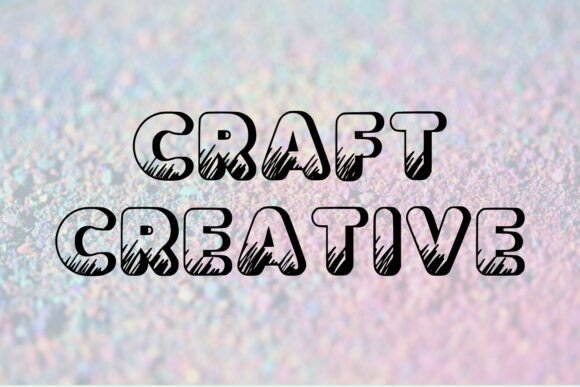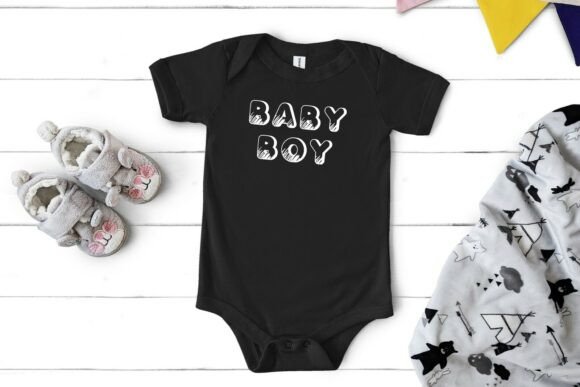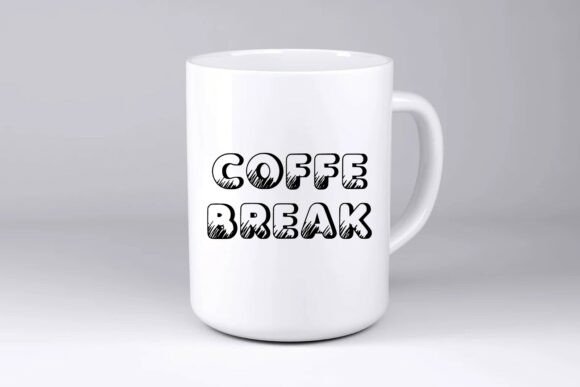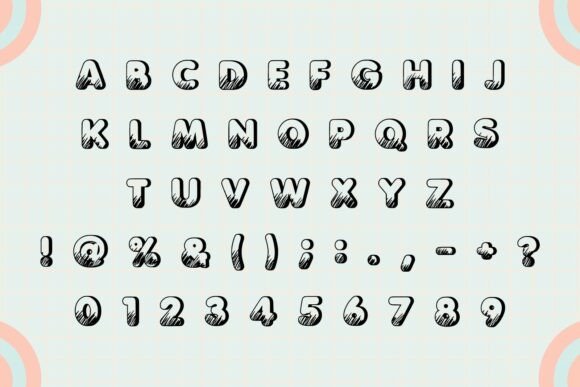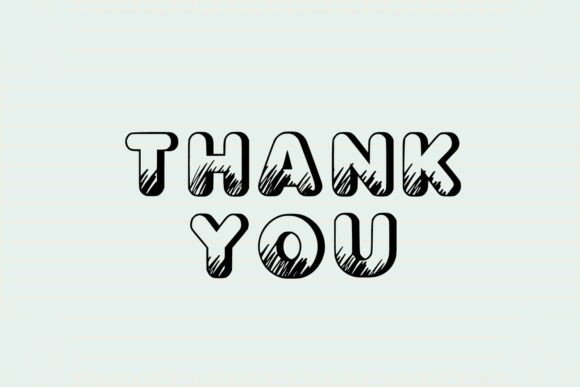
Doodle Chalk Font: Unleash Your Creativity with a Bold and Edgy Display Font
Are you looking for a font that can add a strong and rebellious vibe to your designs? Look no further than the Doodle Chalk Font. This bold, rough, and edgy display font is perfect for creating eye-catching posters, album covers, t-shirts, and more. With its worn-out, street-inspired look and distressed texture, Doodle Chalk Font is ideal for projects that need a tough and gritty appearance.
What is Doodle Chalk Font?
Doodle Chalk Font is a display font with a round pattern style, giving it a unique and distinctive look. The letters have a distressed texture that gives a raw and urban feel, making it perfect for designers who want to add a touch of edginess to their work. The font’s bold and rough texture makes it stand out from other fonts, and its versatility allows it to be used in a variety of design projects.
Key Features of Doodle Chalk Font
- Bold and Edgy: Doodle Chalk Font has a strong and rebellious vibe, making it perfect for designs that need to make a statement.
- Distressed Texture: The font’s distressed texture gives it a raw and urban feel, adding a touch of grit and toughness to your designs.
- Round Pattern Style: The font’s round pattern style gives it a unique and distinctive look, setting it apart from other display fonts.
- Versatile: Doodle Chalk Font can be used in a variety of design projects, from posters and album covers to t-shirts and more.
Uses of Doodle Chalk Font
Doodle Chalk Font is perfect for designers who want to add a touch of edginess to their work. Here are some of the many uses of this versatile font:
- Posters: Use Doodle Chalk Font to create eye-catching posters for concerts, festivals, or other events.
- Album Covers: Add a touch of grit and toughness to your album covers with Doodle Chalk Font.
- T-Shirts: Create bold and edgy designs for t-shirts with Doodle Chalk Font.
- Logos: Use Doodle Chalk Font to create logos for businesses or brands that want to make a statement.
Tips for Using Doodle Chalk Font
Here are some tips for using Doodle Chalk Font in your designs:
- Use it boldly: Doodle Chalk Font is a bold font, so use it boldly to make a statement.
- Experiment with colors: Try using Doodle Chalk Font in different colors to add depth and interest to your designs.
- Pair it with other fonts: Experiment with pairing Doodle Chalk Font with other fonts to create a unique and interesting look.
Doodle Chalk Font is a bold, rough, and edgy display font that’s perfect for designers who want to add a touch of grit and toughness to their work. With its distressed texture and round pattern style, this font is ideal for projects that need a strong and rebellious vibe. Whether you’re creating posters, album covers, t-shirts, or more, Doodle Chalk Font is a versatile font that can help you unleash your creativity and make a statement.